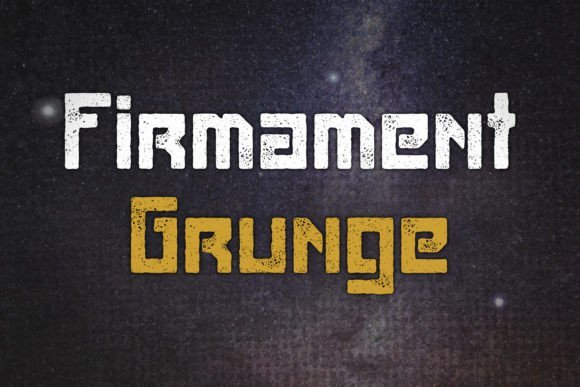
The Perfect Font for a Cosmic Creative Moment
Remember that moment when you finally nailed the design concept for your next project? The stars aligned, and everything clicked into place. For designers, those moments are what drive us to push the boundaries of creativity. And what’s a crucial element in making those moments happen? The right font, of course!
Enter the Firmament Grunge Font, a retro-futuristic display font that’s out of this world. Designed to add a touch of cosmic coolness to your design projects, Firmament Grunge Font is perfect for logotypes, headlines, and any other creative endeavor that needs a little extra oomph. With its versatility and unique style, it’s no wonder designers are going wild for this font. Whether you’re working on a corporate identity, a music project, or a YouTube video, Firmament Grunge Font is sure to elevate your design to new heights.
Firmament Grunge Font Key Features
- Font Family: Firmament Grunge Font
- Unique Characteristics: Distressed, grunge texture with a weathered, worn look; Perfect for adding a vintage feel to designs
- Glyphs: Includes a wide range of glyphs, including Latin, Cyrillic, and Greek alphabets
Firmament Grunge Font Review
I recently had the chance to work with the Firmament Grunge Font, and I must say it’s a unique and eye-catching addition to any design project. ✨ The distressed texture and rough edges add a lot of character to the font, making it perfect for grunge-inspired designs, music branding, or any project that needs a bit of an edge.
Here are some of the things I like about this font:
- ✨ The font’s distressed texture is incredibly realistic, making it perfect for designers who want to add a touch of grit to their work.
- ✨ The font is highly customizable, with a wide range of options for adjusting the texture, color, and size.
- ✨ The font is highly legible, even at small sizes, making it perfect for use in headlines, titles, and other prominent text elements.
- ⚠️ The font can be a bit too aggressive for some designs, so be careful not to overuse it.
- ⚠️ The font may not be suitable for use in highly formal or professional designs, as it can come across as a bit too edgy.
Overall, I think the Firmament Grunge Font is a great addition to any designer’s toolkit. While it may not be suitable for every project, it’s a fantastic choice for designers who want to add a bit of attitude and personality to their work. With its customizable texture and realistic distressed look, it’s a font that’s sure to make a statement.
The Firmament Grunge Font is ideal for:
- Designing posters and flyers for music events or rock concerts.
- Creating a distressed look for logos or branding materials.
- Adding a rugged touch to text overlays for photographs or videos.